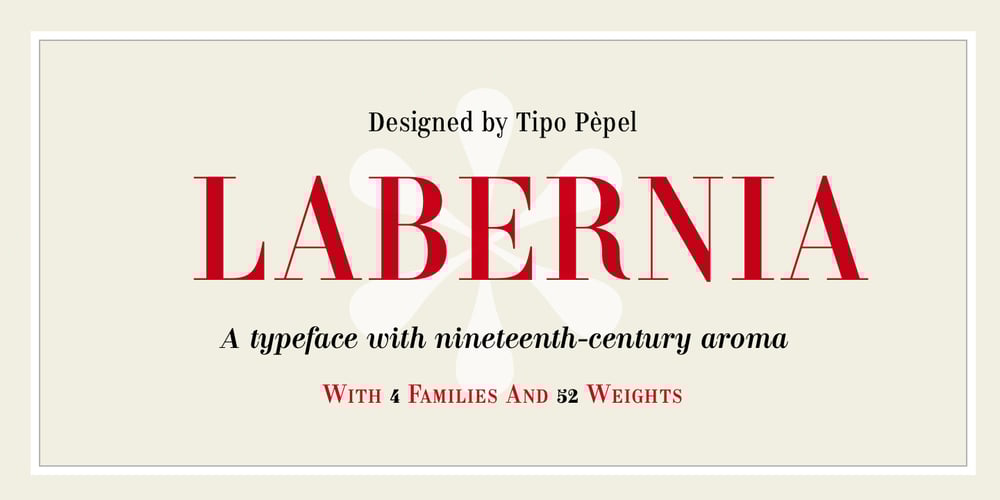
Labernia Font Family was designed by Josep Patau Bellart and published by Tipo Pèpel. Labernia contains 52 styles and family package options. In 1864, a new edition of ‘Labèrnia dictionary’ was published. The book is commonly known under this name as a homage to the author. The typeface used in this publication has been taken as the main reference for the design of a new type family. Labernia is a didone design that includes several variations in width, weight, and contrast. Labernia is a stylish typeface, which pushes its design features to the limit. The high-contrast strokes—seen in most modern typefaces—give a delicate softness to the titling cuts of Labernia. Meanwhile, the characters in the condensed version have a very compact body so they create a highly expressive text. In the italic letterforms, the long terminals aim to connect the characters without touching. And, if we look at the figures we will see a more decorative design, which helps to build a strong personality.